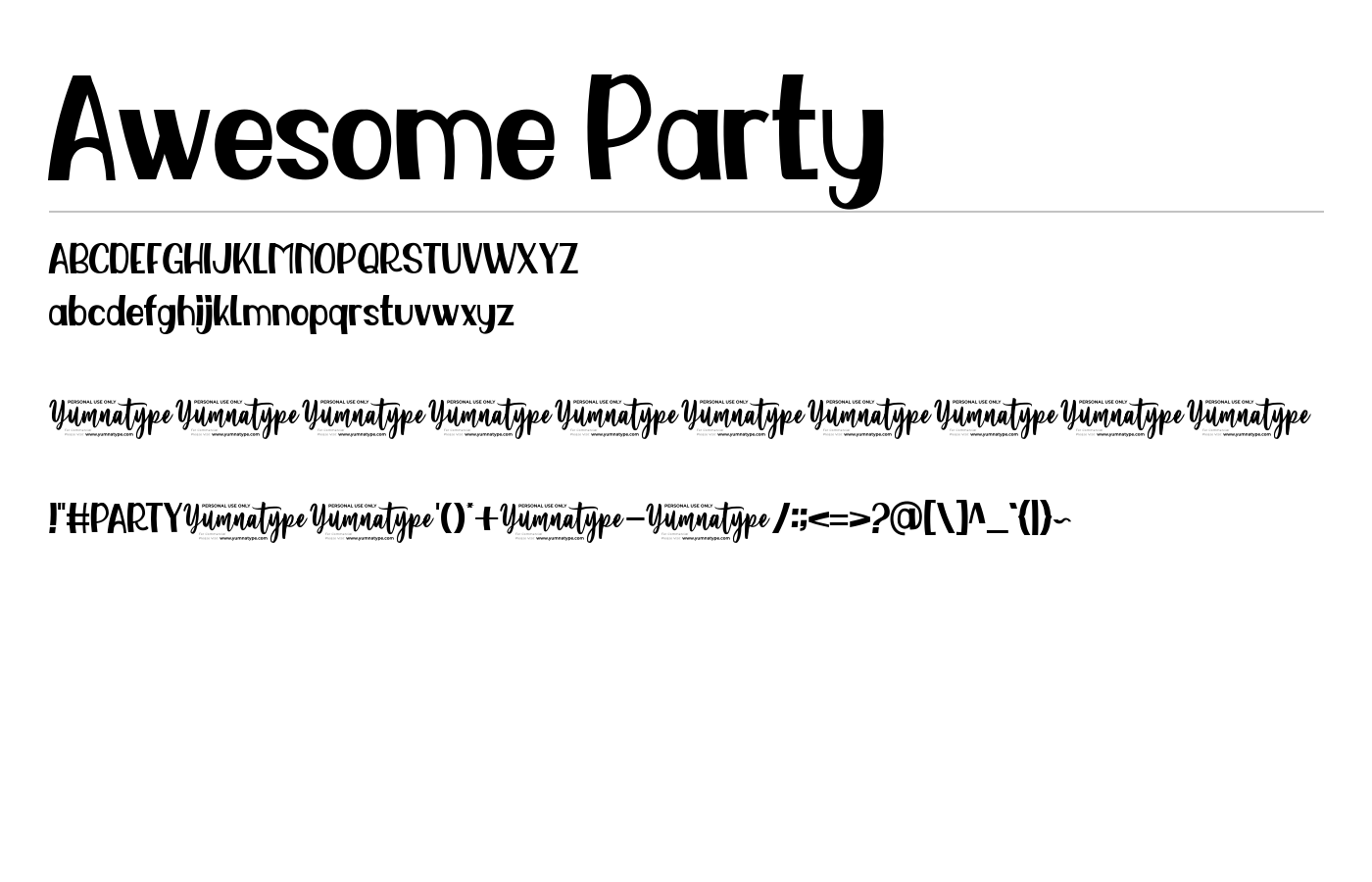
Awesome Party Font is a playful and quirky sans serif typeface with irregular, slightly condensed letterforms that give it a fun, energetic vibe. Its uneven stroke widths and tall x-height create a casual, hand-drawn feel, making it perfect for party invitations, children's materials, and cheerful branding. This font shines best in headlines or display uses where a lively, informal mood is desired.
Awesome Party Font
About Awesome Party Font
| Font family | Awesome Party Font |